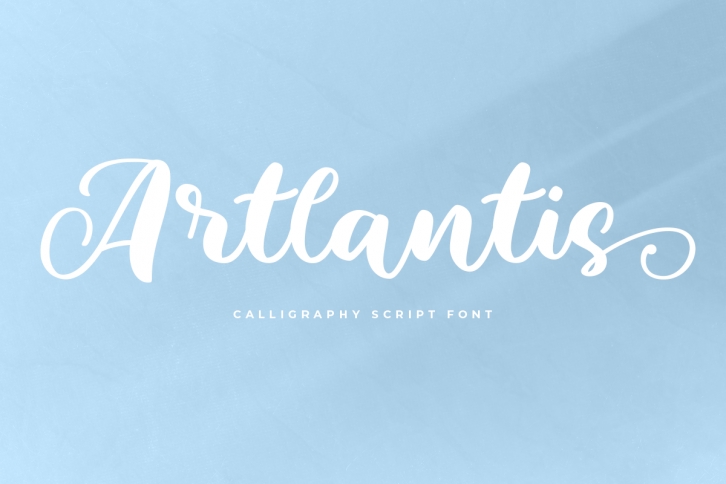
Artlantis is a beautiful and cute handwritten font with a unique feel and a stunning impact. It will add a luxury spark to any design project that you wish to create! Artlantis is PUA encoded which means you can access all of the amazing glyphs and ligatures with ease!